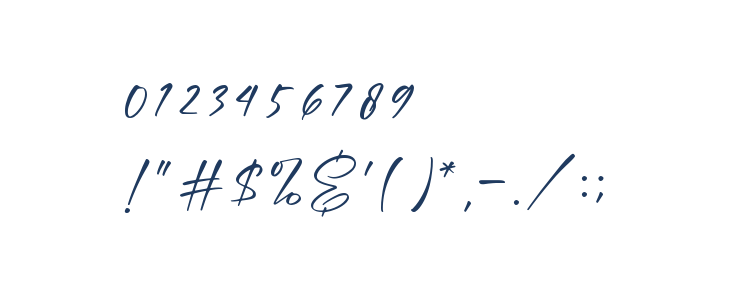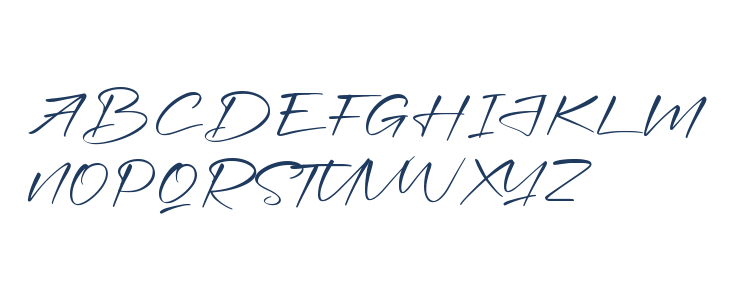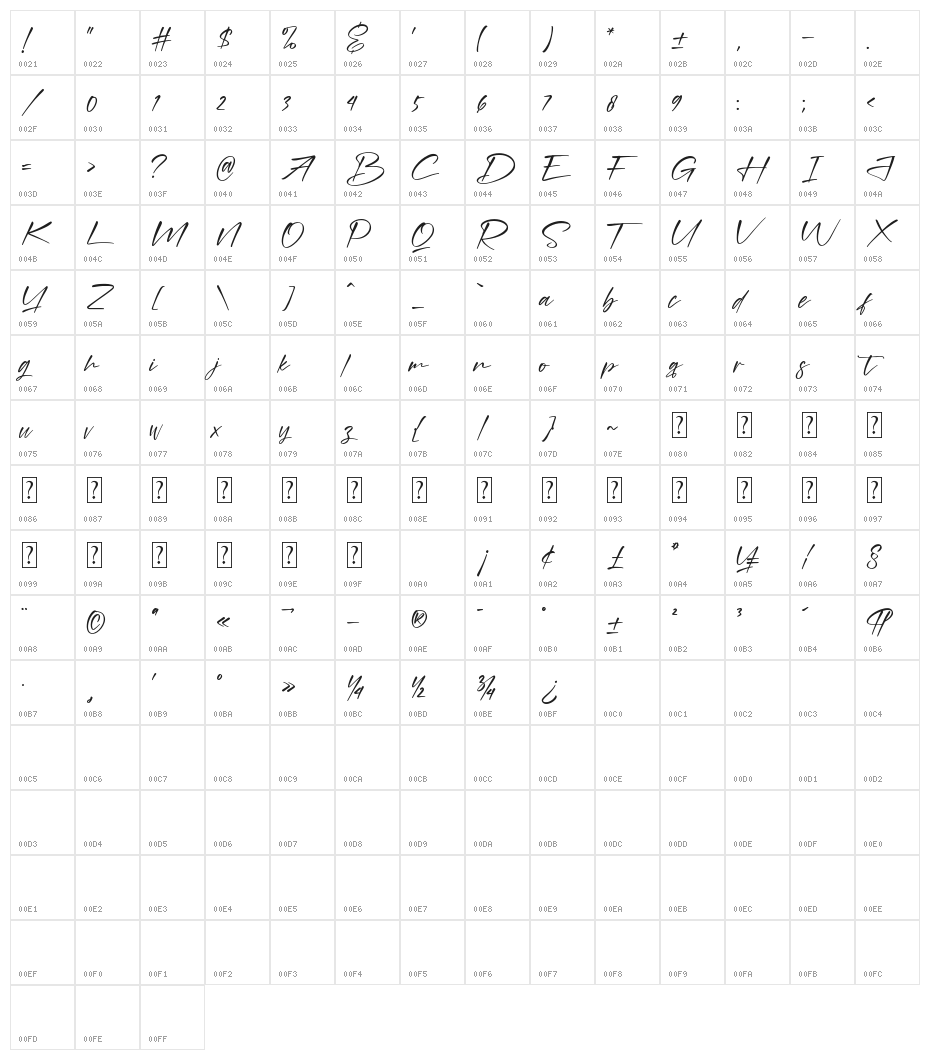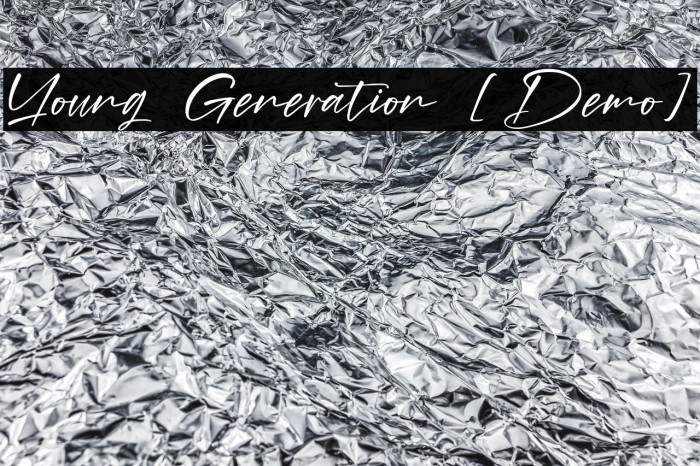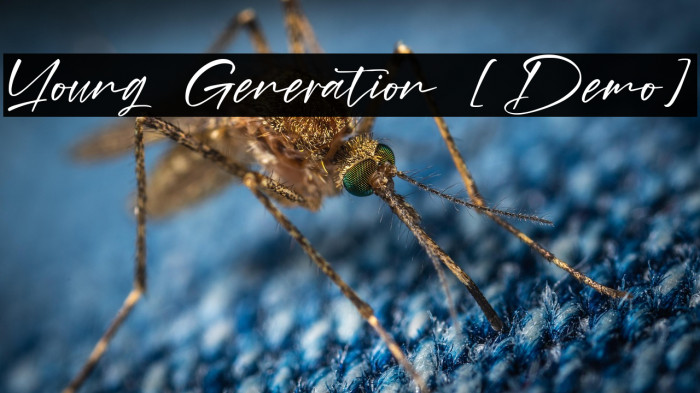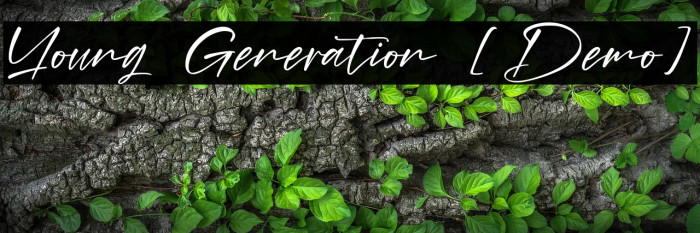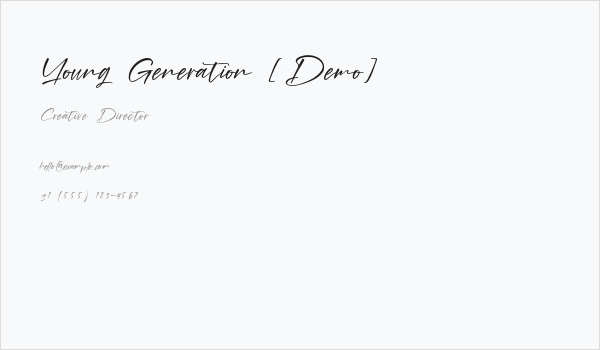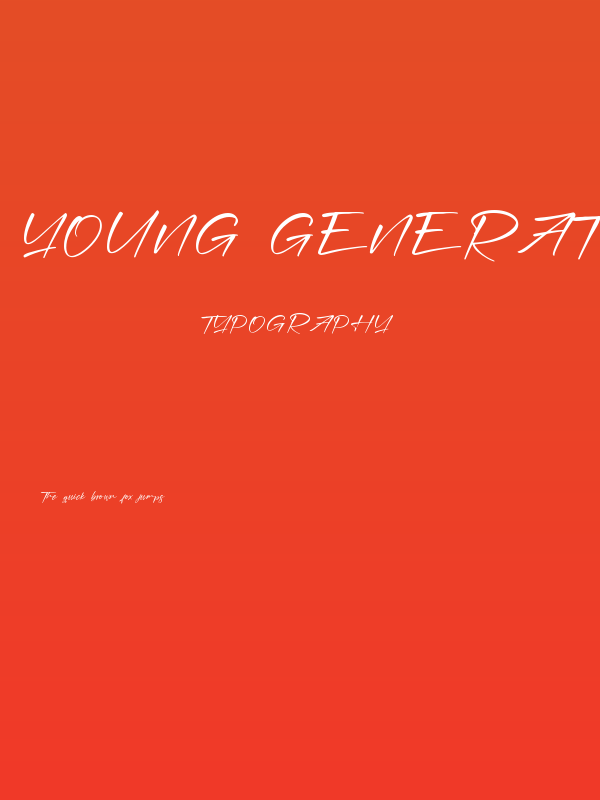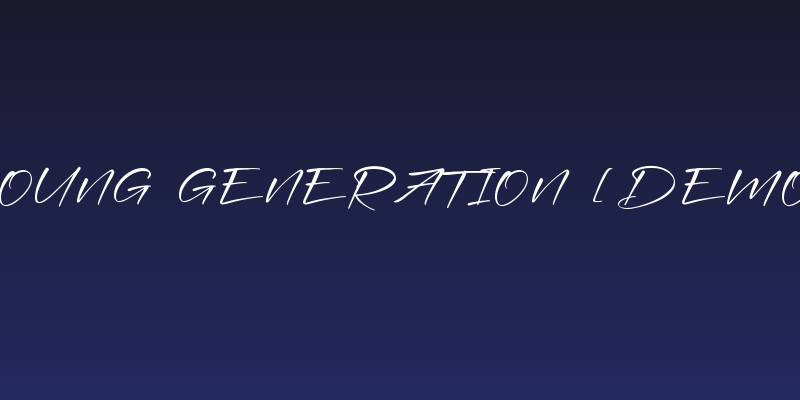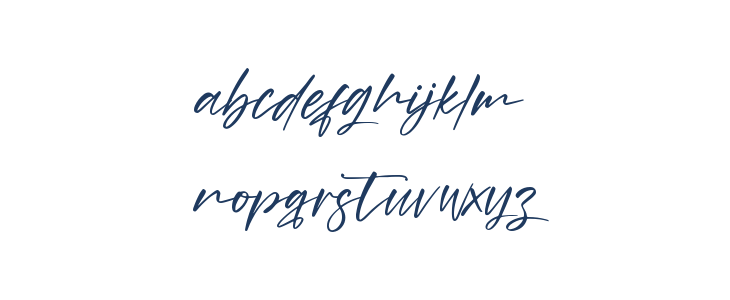
Young Generation [Demo] Font
Young Generation [Demo] Description
This font features an elegant, flowing script style that mimics natural handwriting with a modern twist. The uppercase letters are elongated and slightly slanted, giving them a dynamic and sophisticated appearance. The lowercase letters maintain a consistent flow, with some characters connecting seamlessly to others, enhancing the handwritten feel. The numerals are clear and legible, maintaining the same stylistic flair as the letters. Special characters are thoughtfully designed to match the overall aesthetic, making this font versatile for various applications. The strokes vary in thickness, adding a sense of movement and energy to the text.
| Proposed Projects | Ideal for wedding invitations, branding, social media graphics, and personal stationery. |